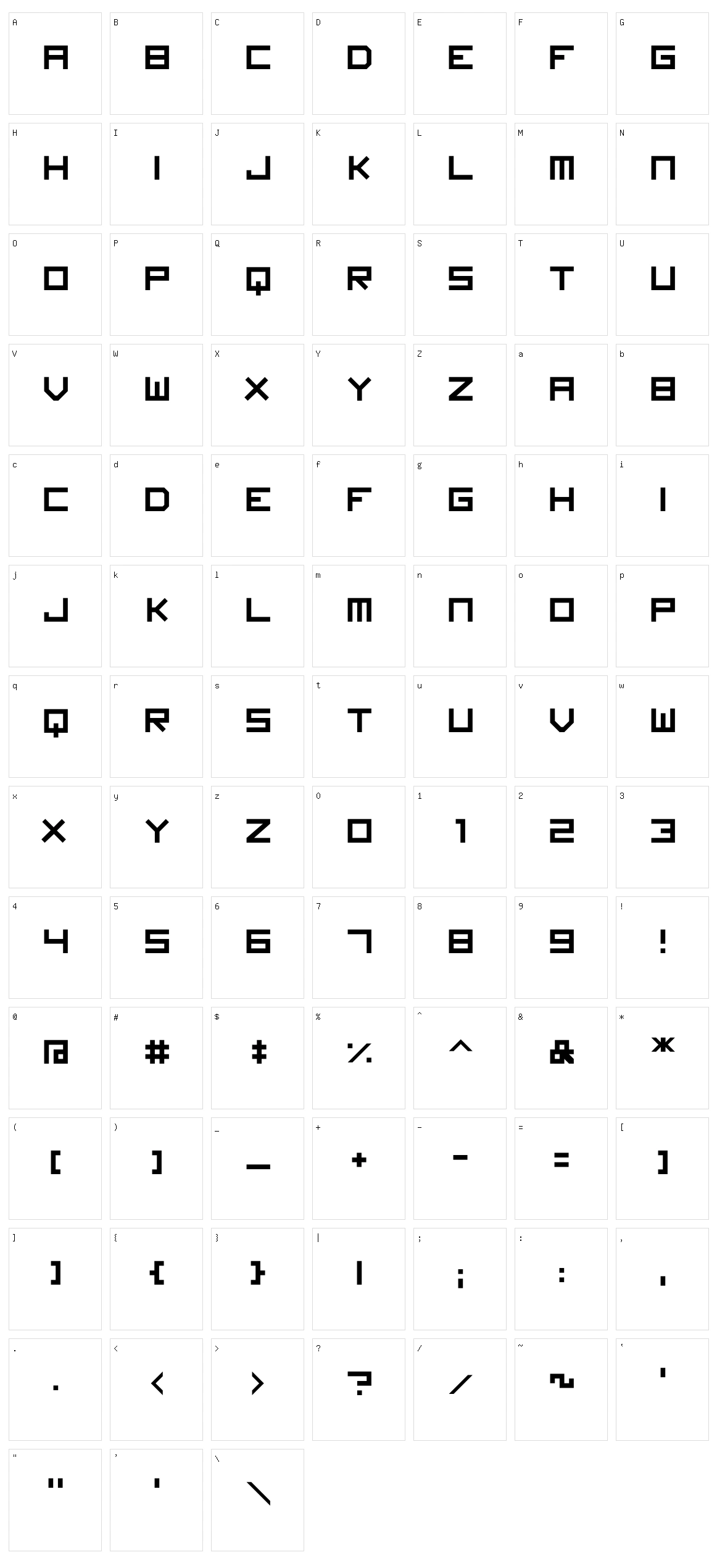
Imagine Font
was redesigned in 2019 - many special characters for various languages added.
This futuristic small cabs was created for my Game Project "ImagineEarth.info" A nice simple techno square font for headlines and styles!